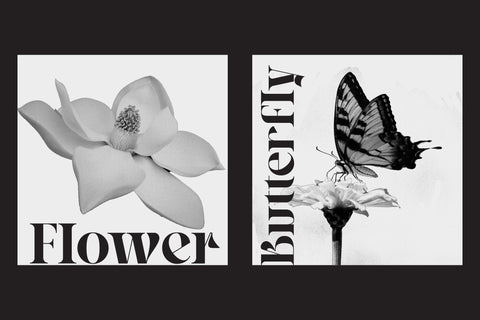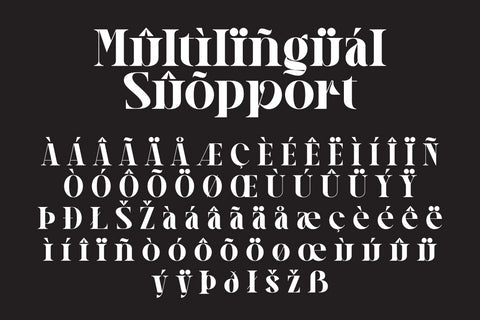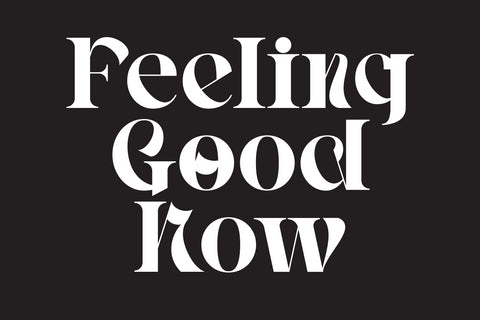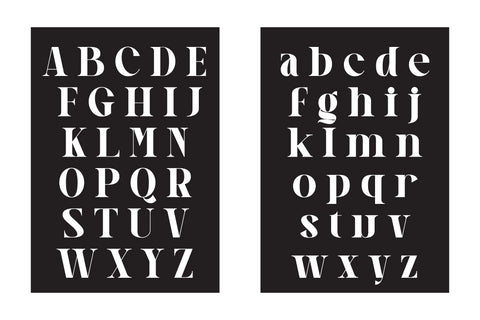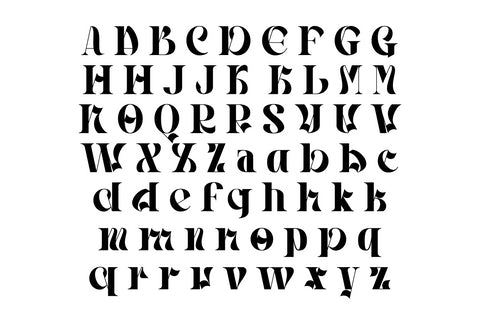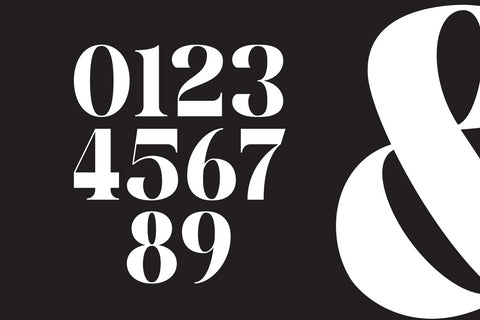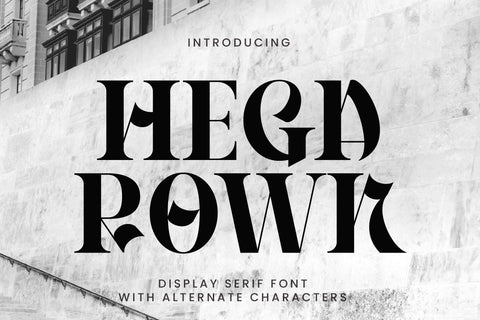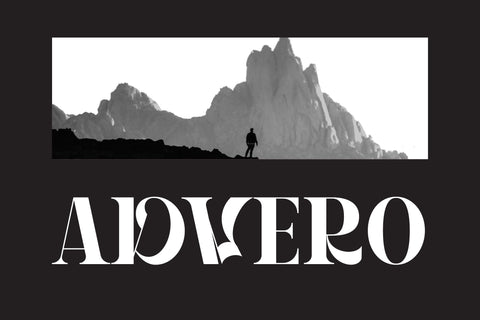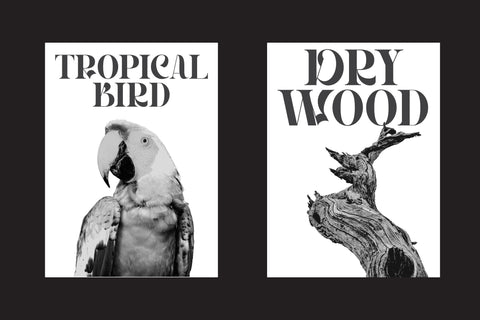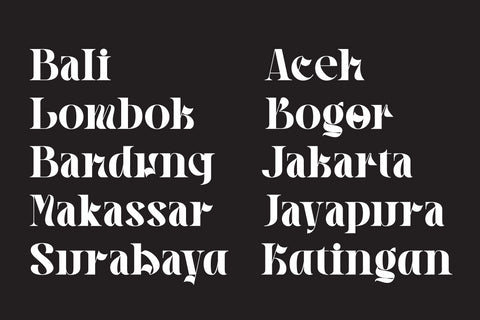
Hegarown - Display Font
Introducing Hegarown, a captivating display font with a contemporary and cool aesthetic that makes it an ideal choice for a wide range of creative projects. Whether you’re designing logos, establishing brand identities, crafting invitations, creating stunning stationery, shaping wedding designs, or producing eye-catching social media posts, Hegarown Font is your go-to solution.
- Alternate Characters
- Numbers and punctuation
- Multilingual